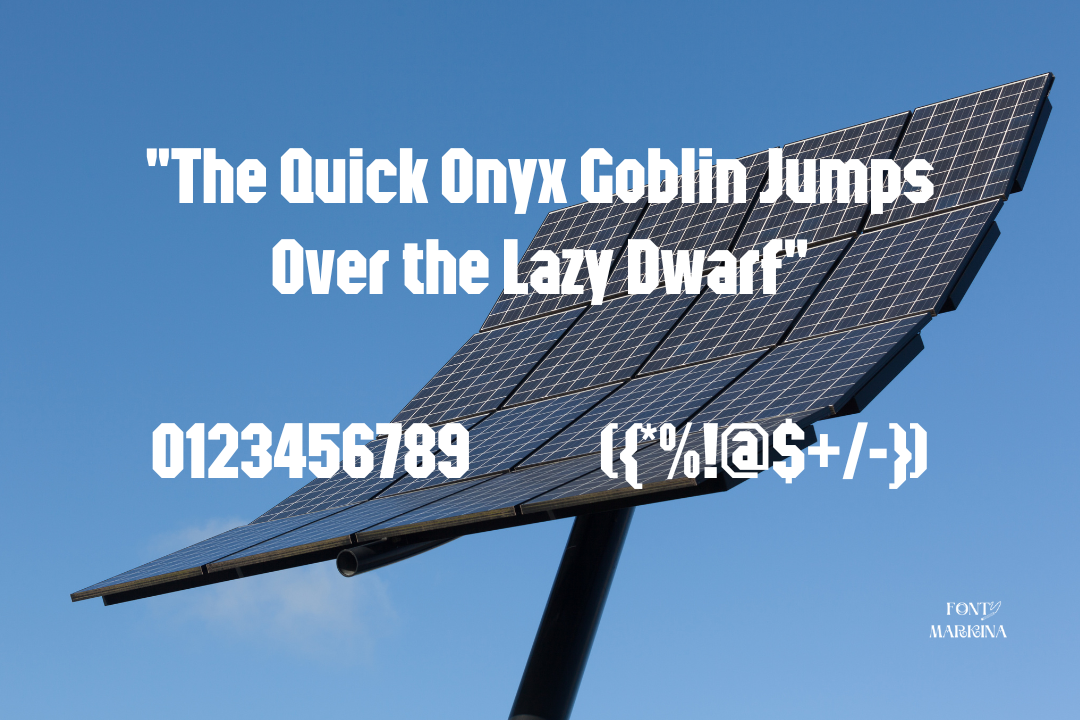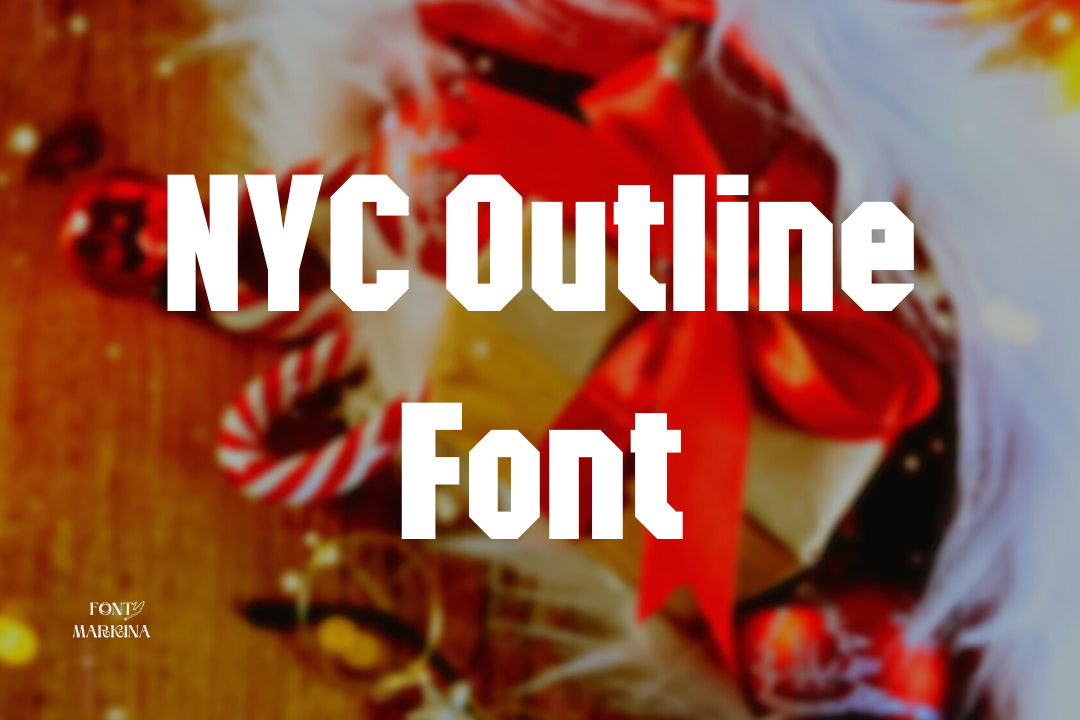
Hy viewer! today we come with an enormous texture that varies under the name NYC Outline Font. This texture lies in the classification of the display family of fonts. The original manufacturer of this texture is Keith Bates.
This typography was released through a prominent K-type foundry. Regular is the subfamily of this stylish typography. It sustains a bunch of international languages. This texture is unique for its bold style and rounded corners.
One of the closest similar to NYC Outline Font is Astro Creep font which has the duplicate look. One great thing is the generator tool of this typeface. You can easily explore it on google.
Uses of NYC Outline Font
Because of a vast variety of characters and features, almost all designers pay attention to using NYC Outline Font for their projects. Many expert manufacturers use this typography for certificate designs to card printing.
It is also well suited for printing on t-shirts, clothes designs, mug designs, and much more. You can pick it for special types of signatures. In order to achieve more classic uses Anurati font is best making pairing with this family. It is effective for kids’ toys and stationery items.
| Name | NYC Outline Font |
| Designer | Keith Bates |
| Style | Display |
What is an NYC Outline typeface?
This texture is from the display family of fonts. It has a subfamily that is regular.
Where we can use the NYC Outline typeface?
This texture is used for many projects like poster designs, kid’s toys, display projects, and much more.